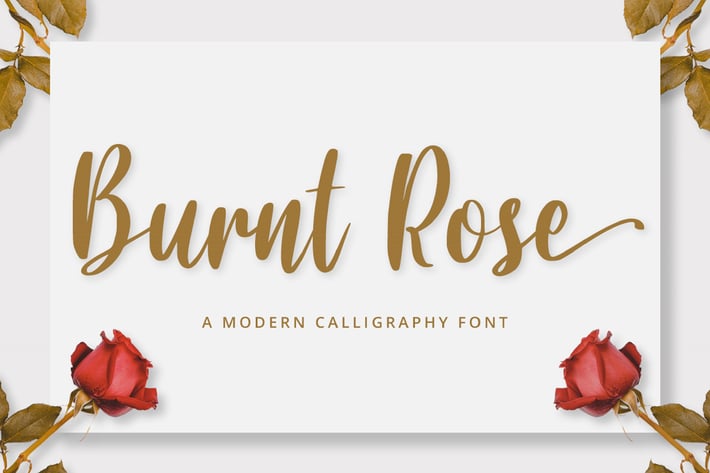
Calligraphy/Cursive Font
Introducing Burnt Rose - A Modern Calligraphy Font.
A modern and elegant handcrafted calligraphy font that’ll make your audience swoon and enhance your branding projects, printed materials, and website design.
Every stroke and curve was created to capture the essence of elegance and style. Ideal for social media banners; posts, and ads, printed quotes, t-shirt designs, packaging, or even as a modern text overlay to any background image.
Burnt Rose includes Ligature & Stylistic Sets as well as Multilingual Support to make your branding globally acceptable.
Multilingual & Ligature Support
Full sets of Punctuation and Numerals